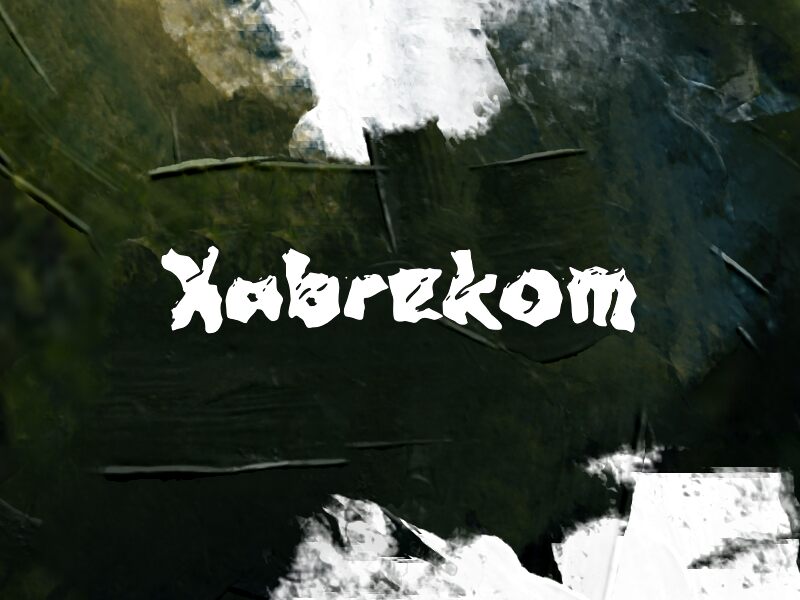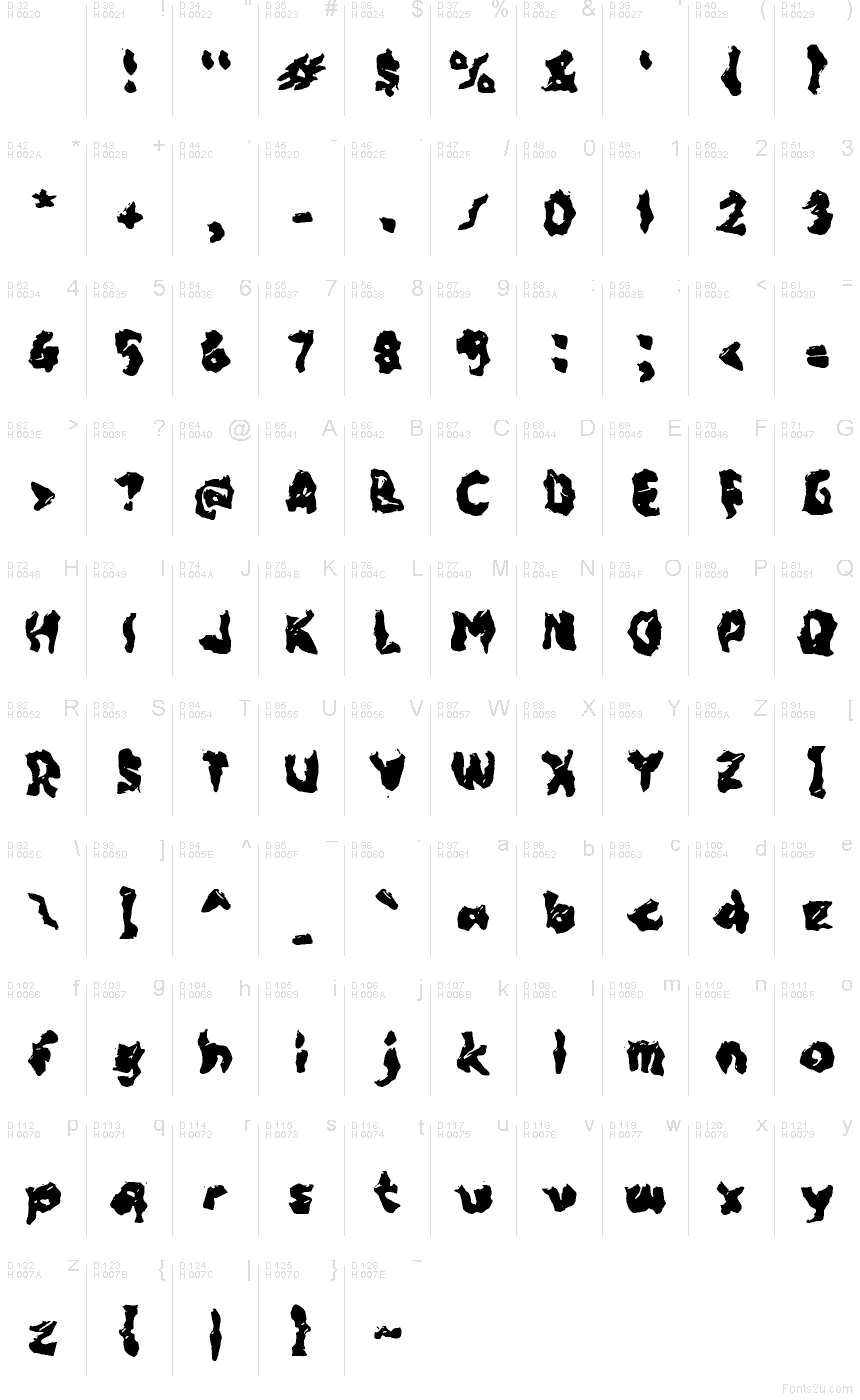
Xabrekom is Wep's free distorted display font, and the letters look hacked from thick, melting scraps with a raw horror-zine attitude. Heavy silhouettes, torn edges, and lopsided cuts give it a crude handmade pulse, so the font feels more like a set of damaged shapes than orderly lettering.
That makes it a strong fit for underground posters, game title cards, metal flyers, haunted event branding, and cover lines where a free font with this much abrasion can carry the whole mood. Use it when you want short words, logos, or chapter opens to feel unstable and a little feral, because the rough contours do most of the talking.
Xabrekom